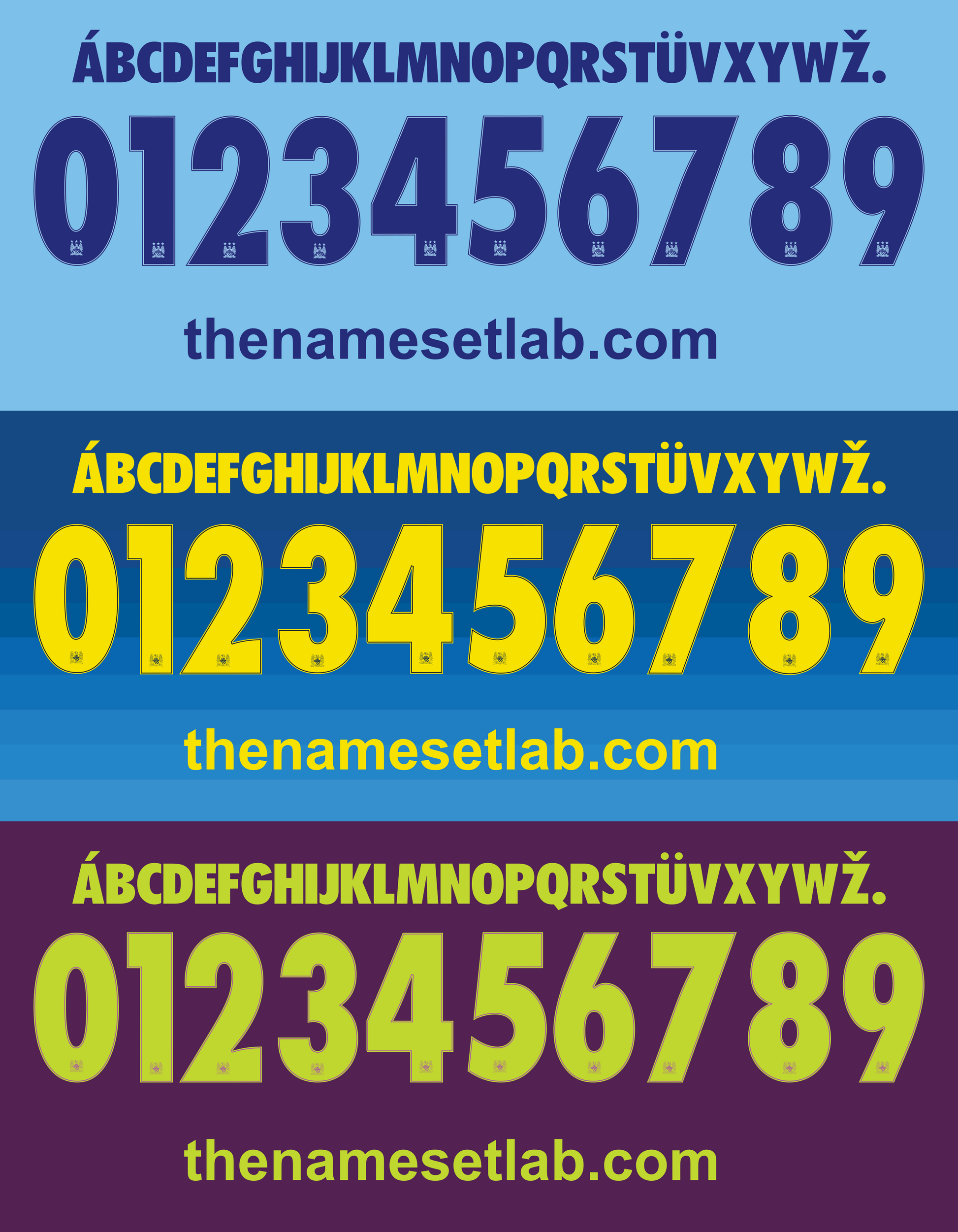
Manchester City-14-15 UCL / Cup Font Nameset AI Vector File
Download this Manchester City 2014-2015 UCL / Cup nameset as an editable .ai vector file. Styled in the 14/15 font, it’s perfect for recreating shirts from City’s Champions League and domestic cup campaigns under Manuel Pellegrini. Great for custom football projects or memorabilia collections.